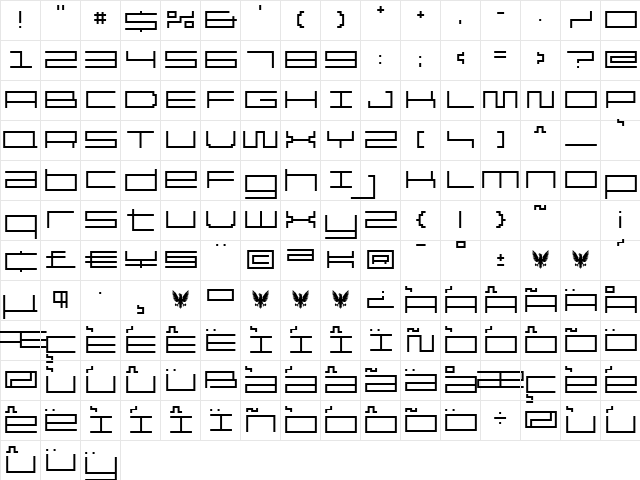
Reversion Light
| Foundry | YouWorkForThem |
| Designer | Michael Cina |
Design Context for Reversion Typeface
Reversion offers clean, dependable letterforms without strong stylistic allegiance, making it a practical choice for designers who need flexibility. The delicate stroke weight brings airiness and refinement to layouts.